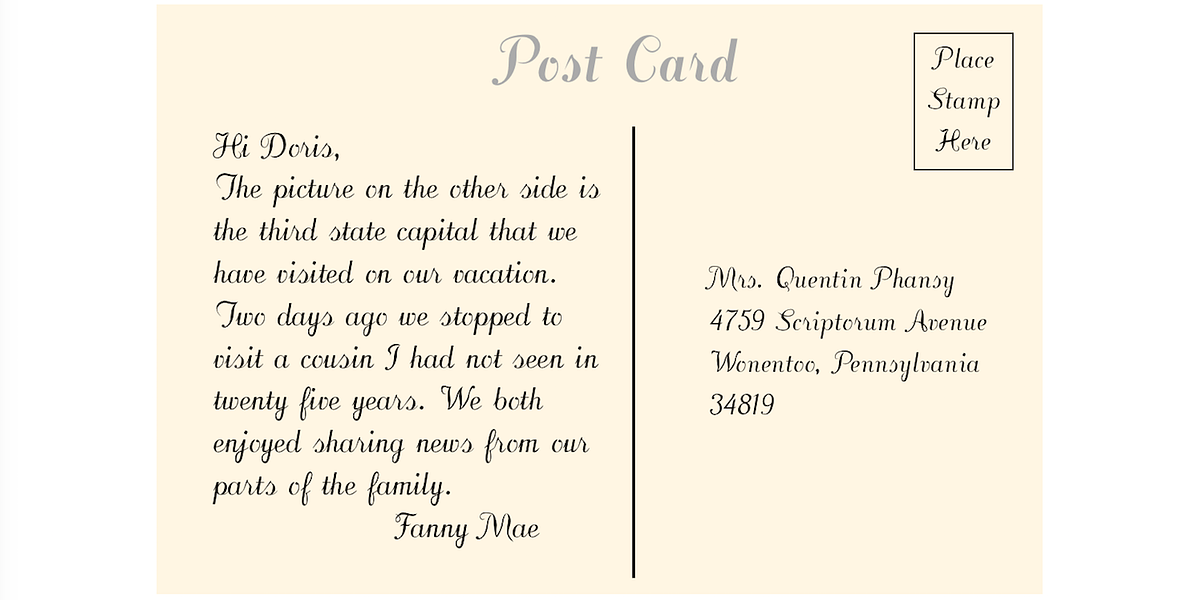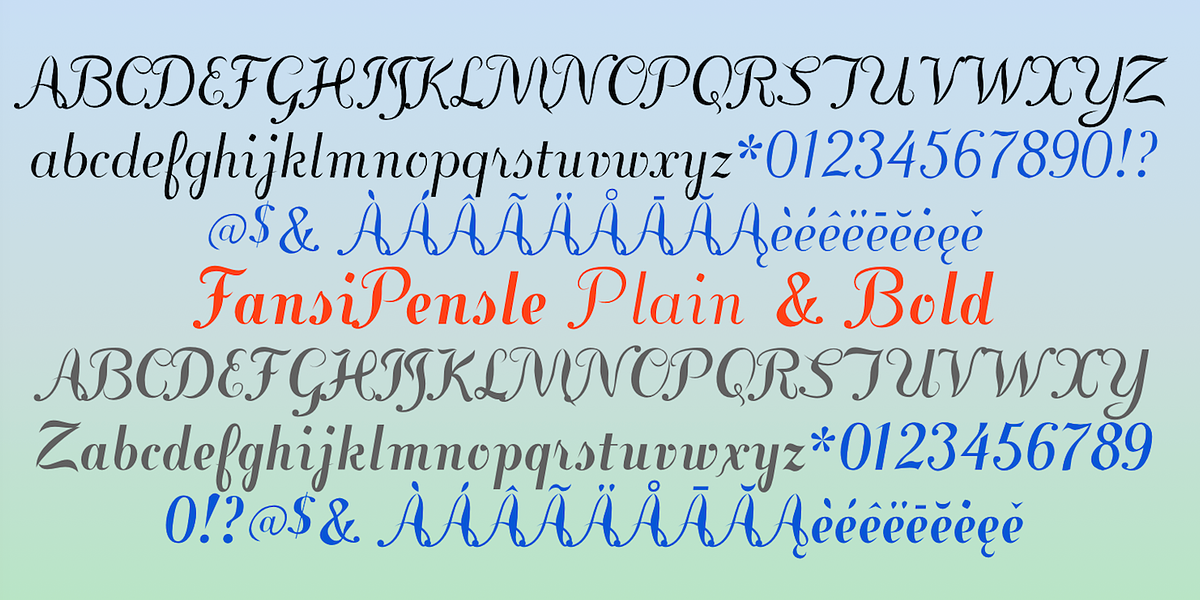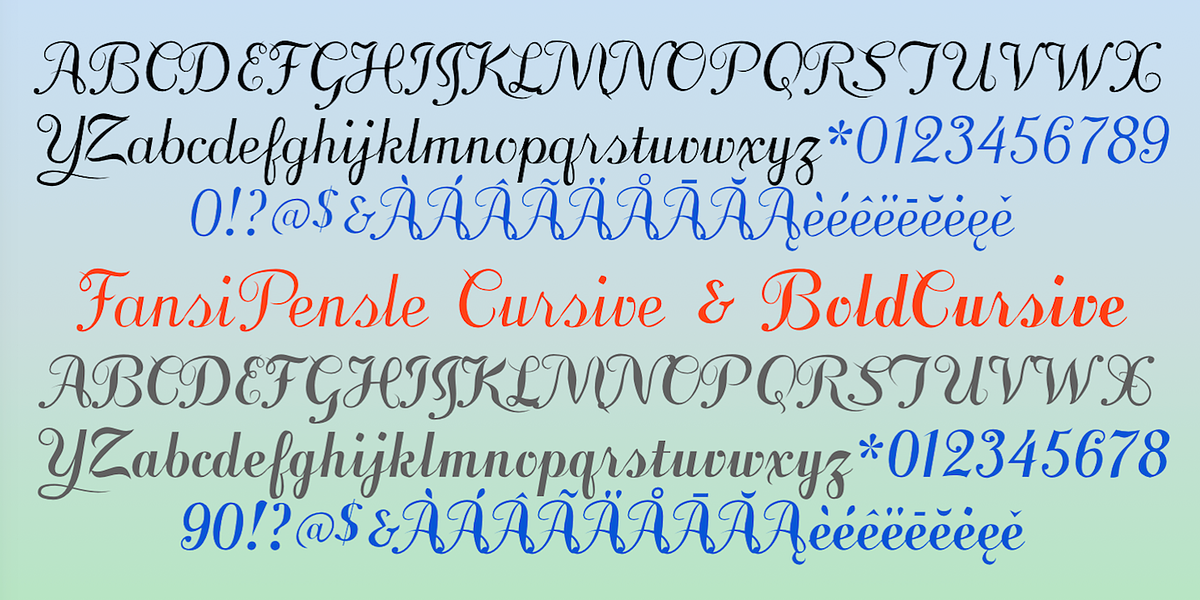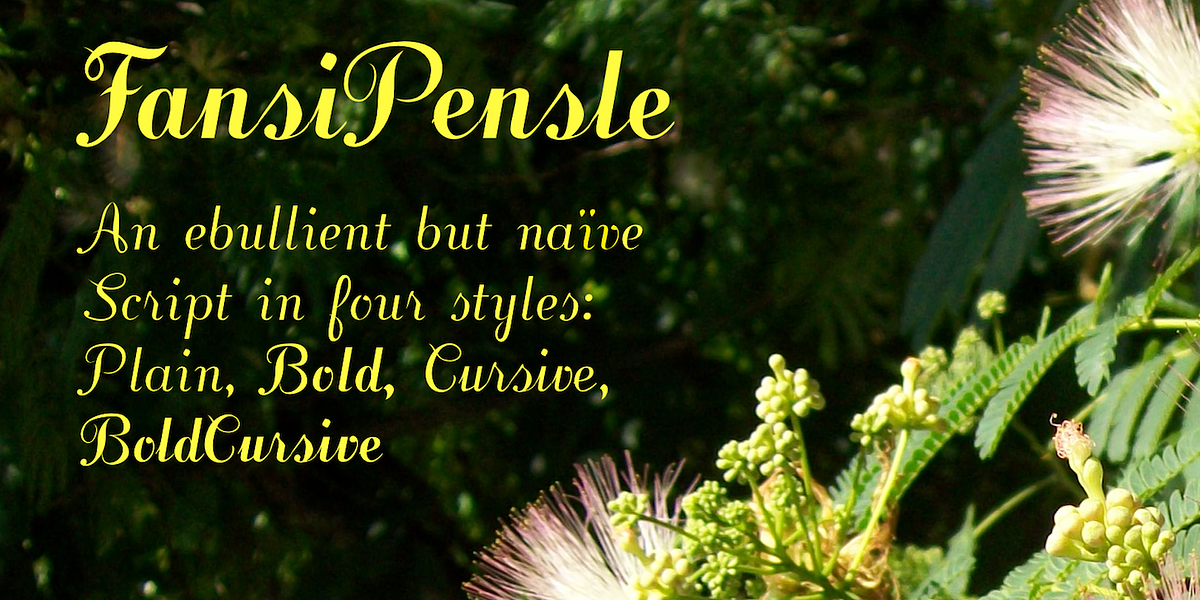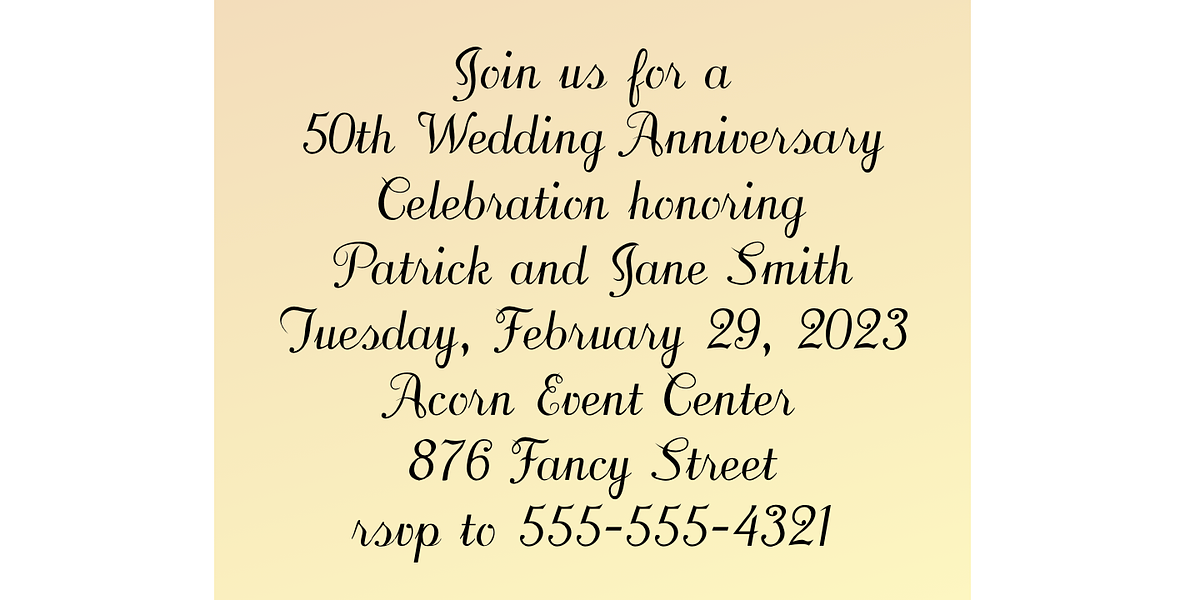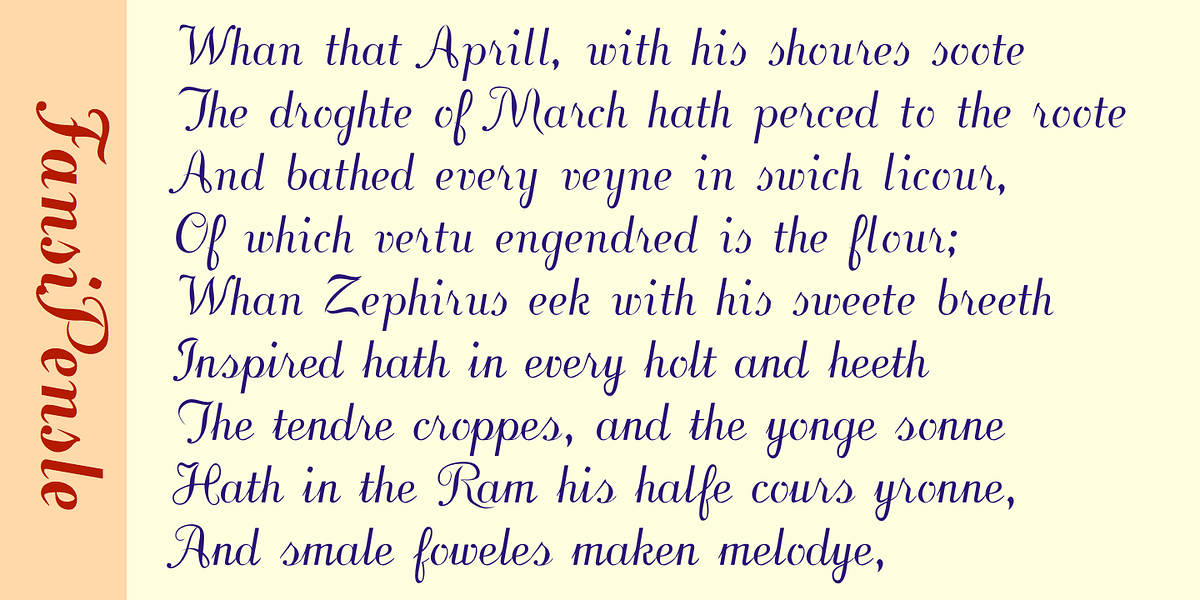
FansiPensle
FansiPensle is a decorative script font characterized by its contrasting letter styles. The capitals are ornate and fussy with unusual flourishes, while the lowercase letters are neat and simple, resembling a cursive alphabet. The lowercase letters connect in the cursive and cursive-bold styles but remain unconnected in the plain and bold styles.